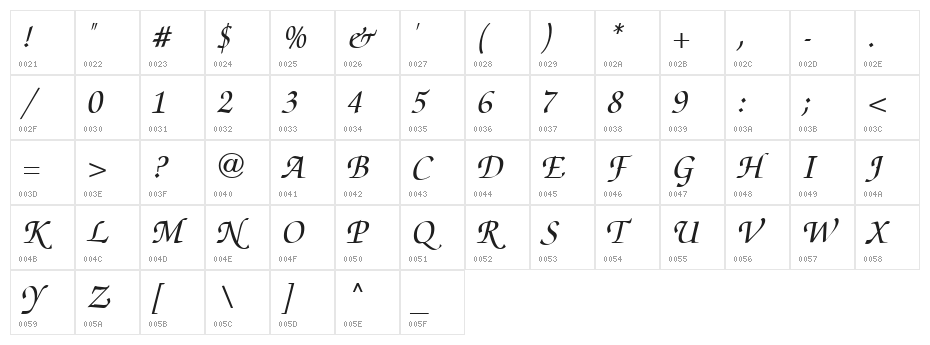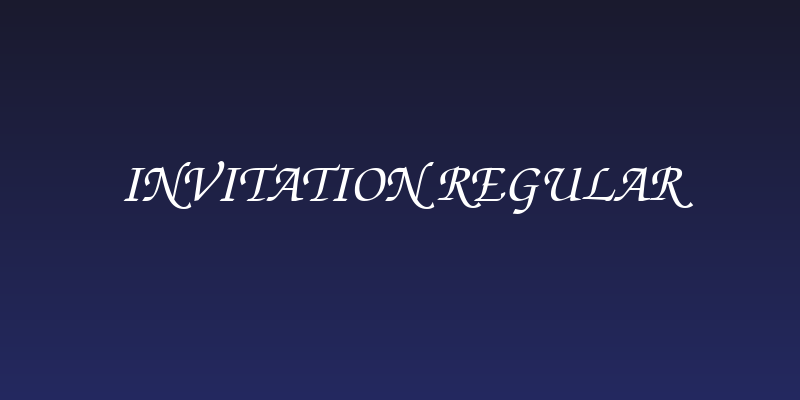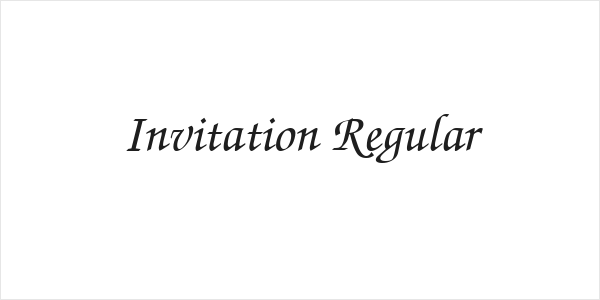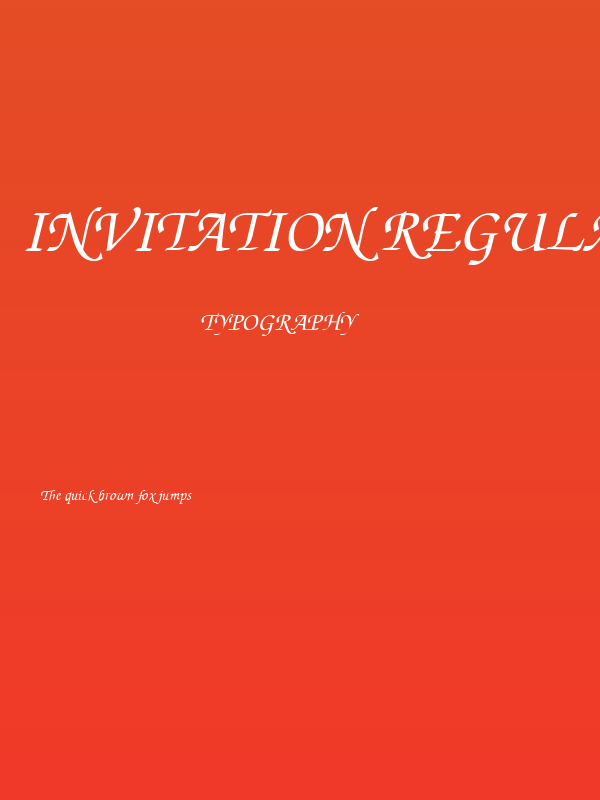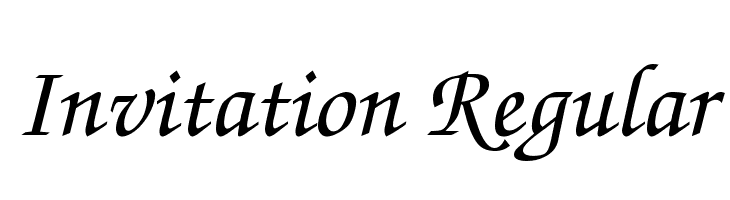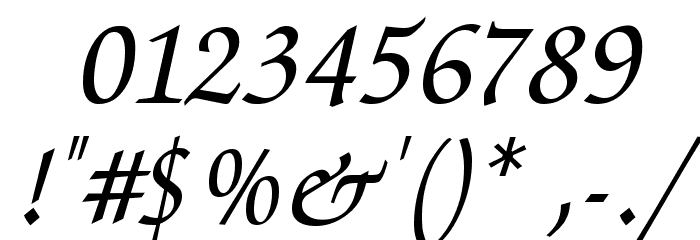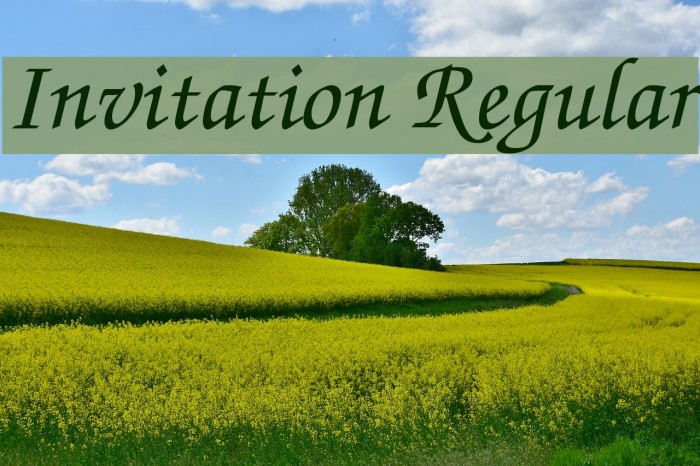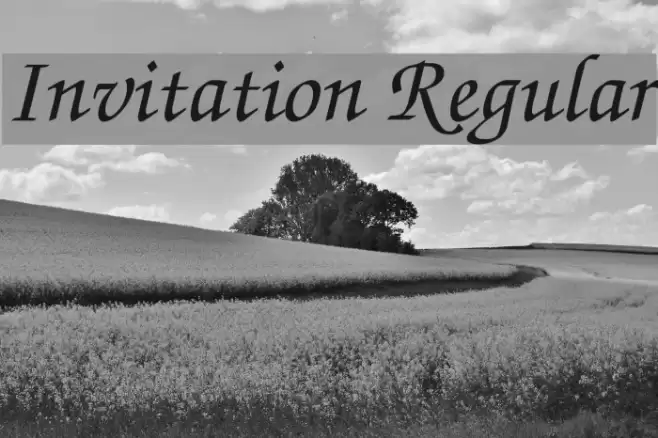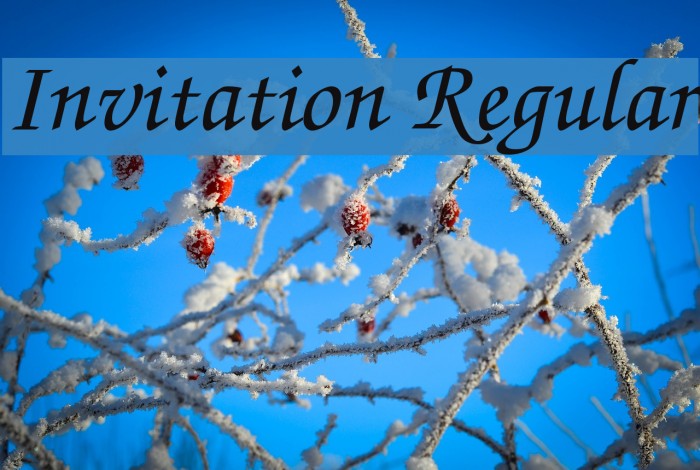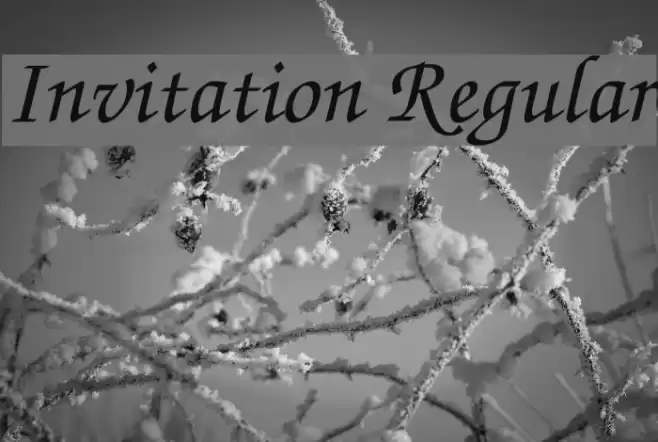
Invitation Regular Font
| 用途 | Invitations, Elegant branding, Formal documents |
| おすすめプロジェクト | Ideal for wedding invitations, formal event programs, elegant branding, and high-end product packaging. |